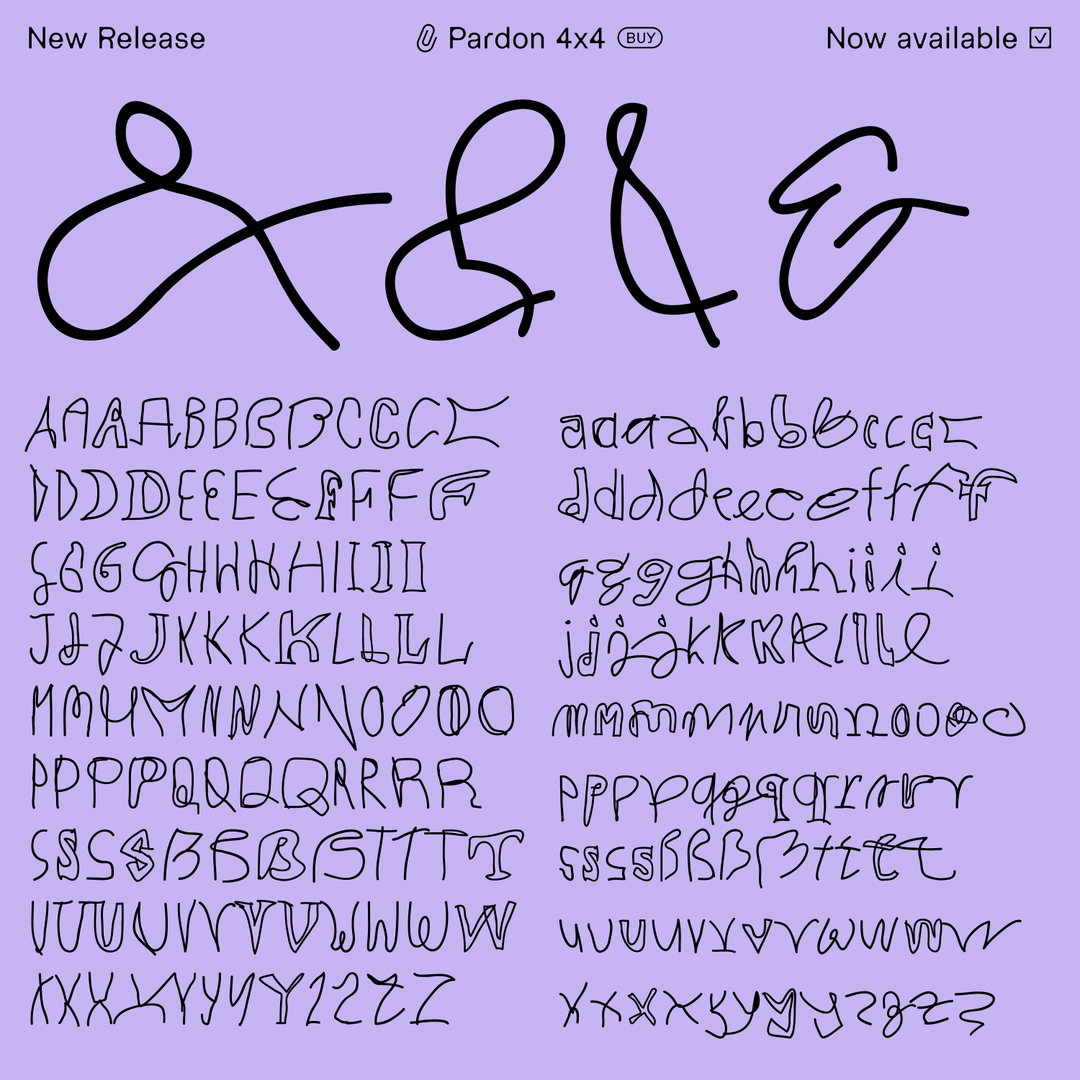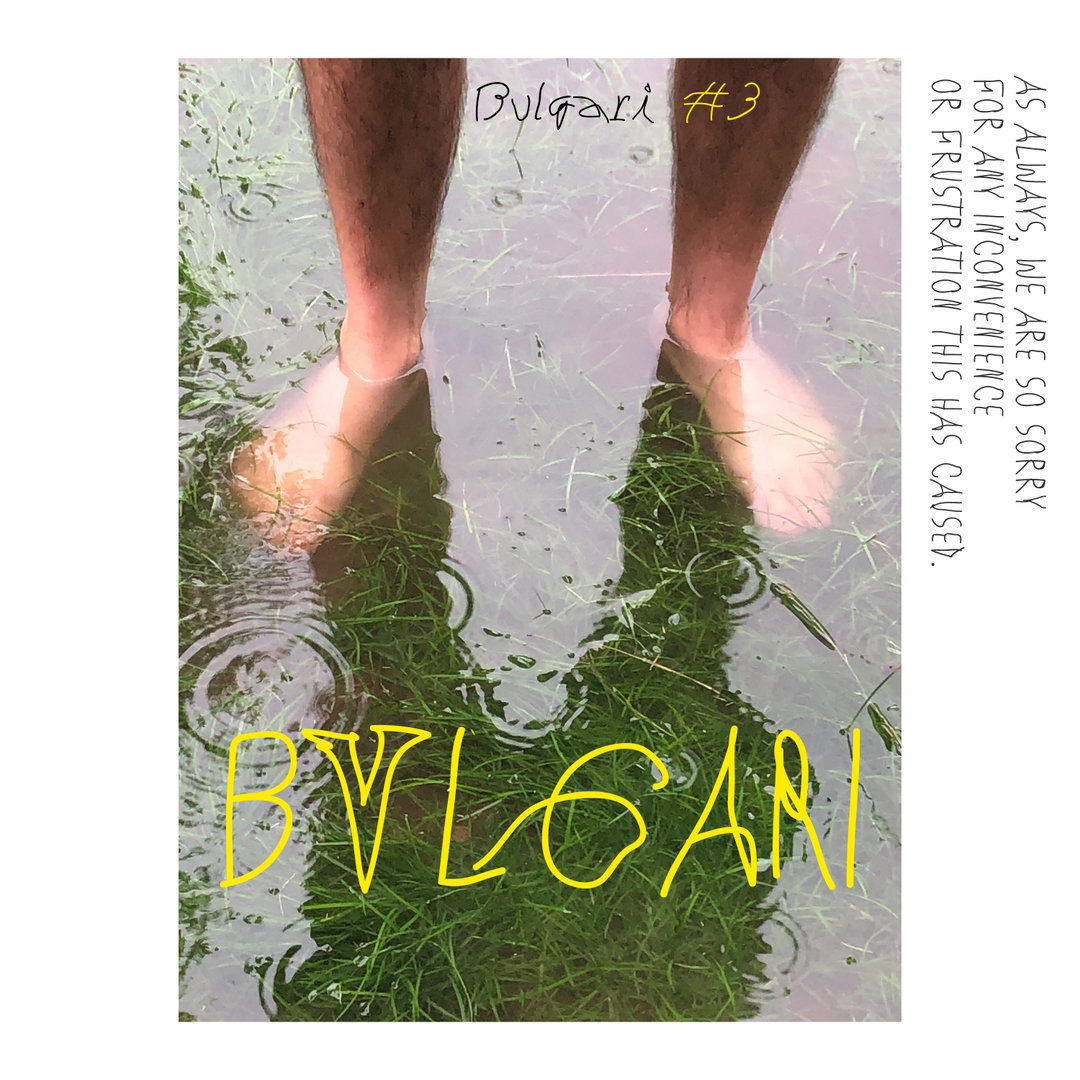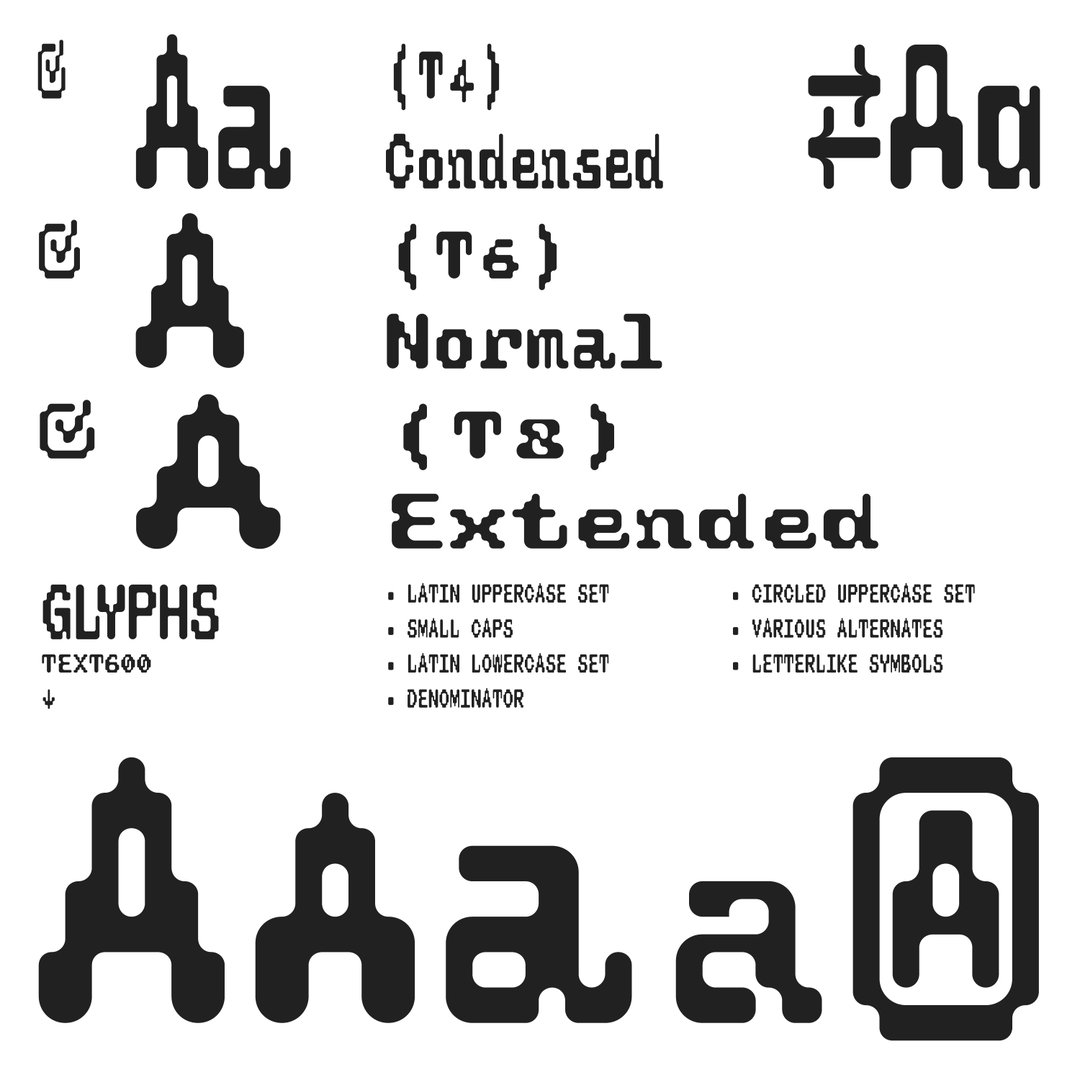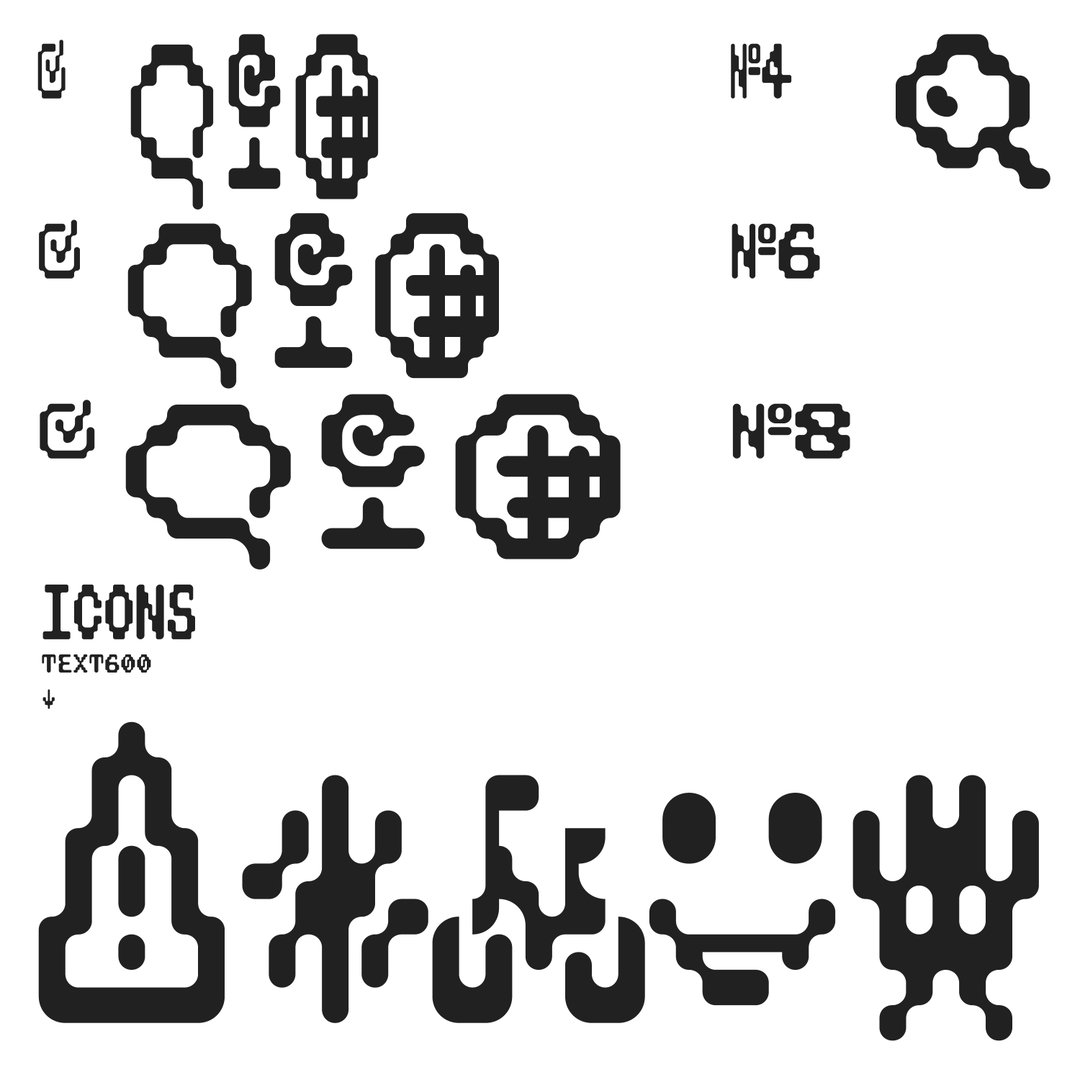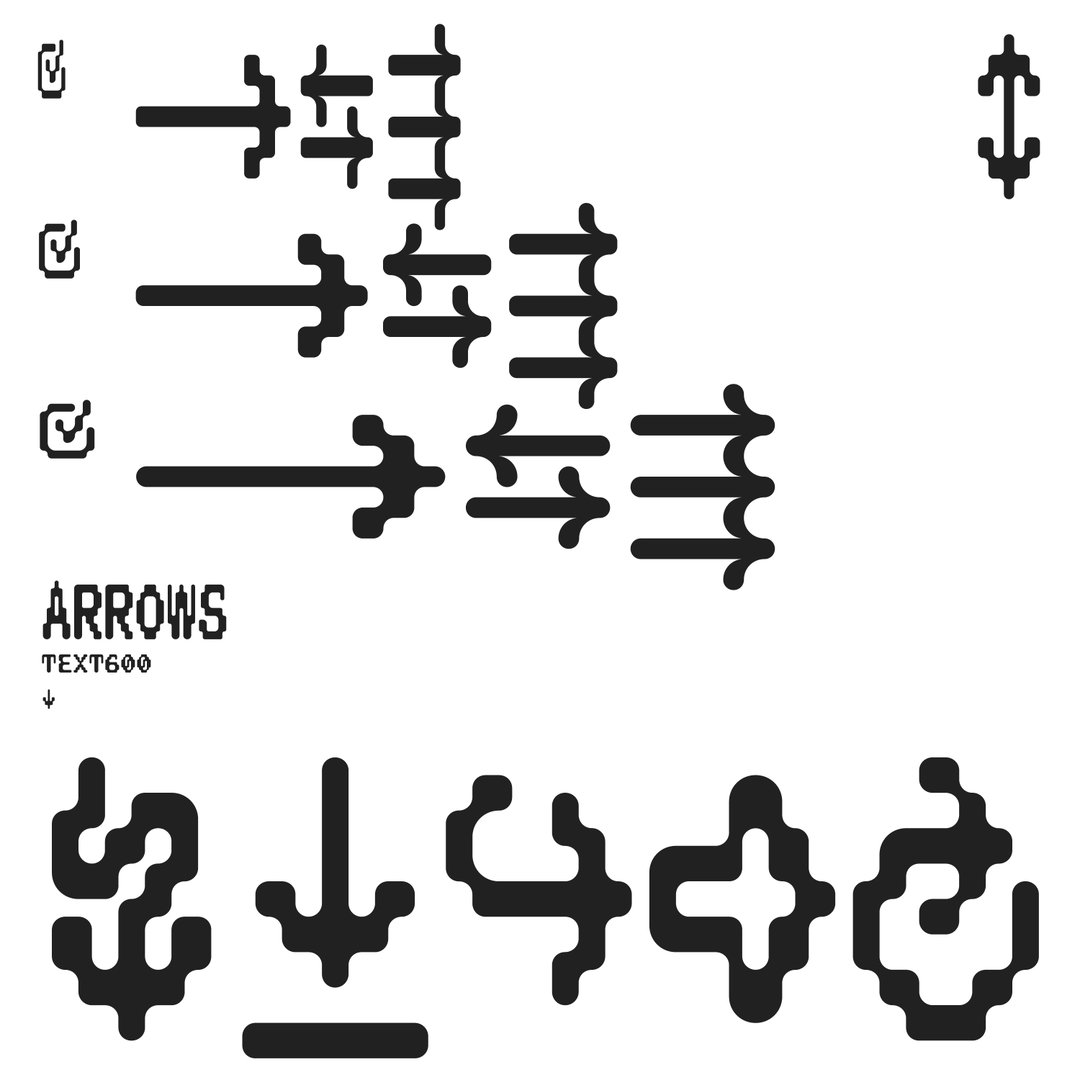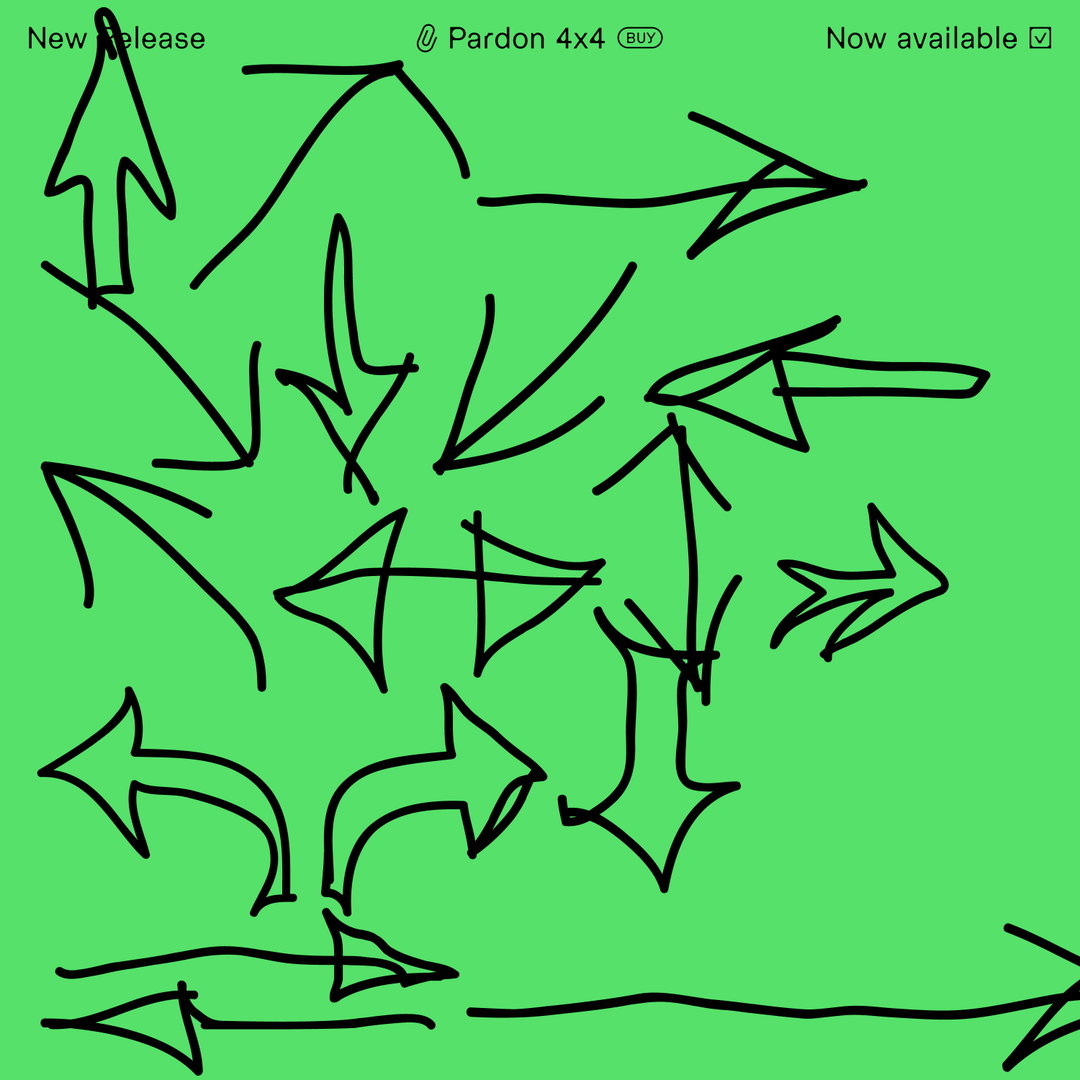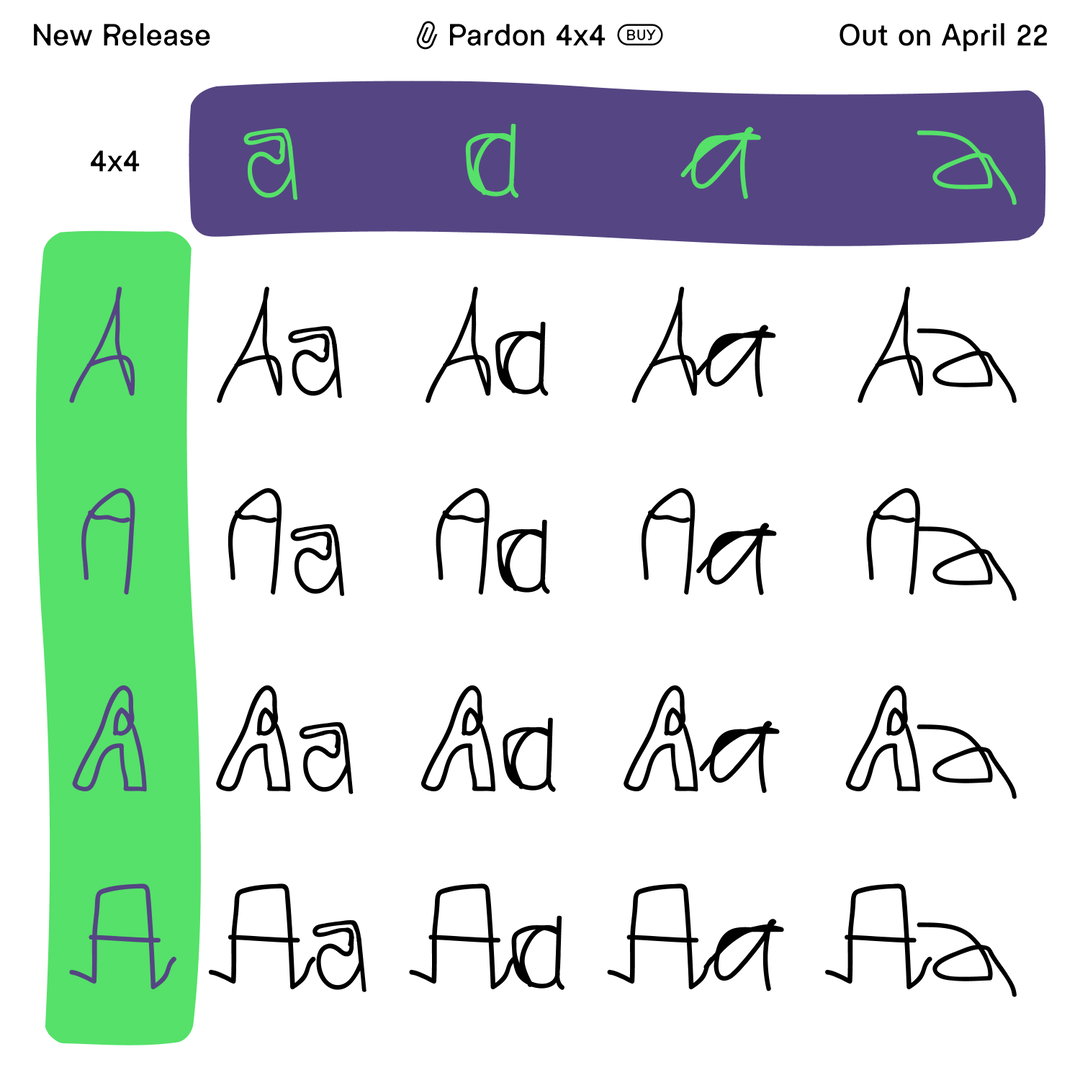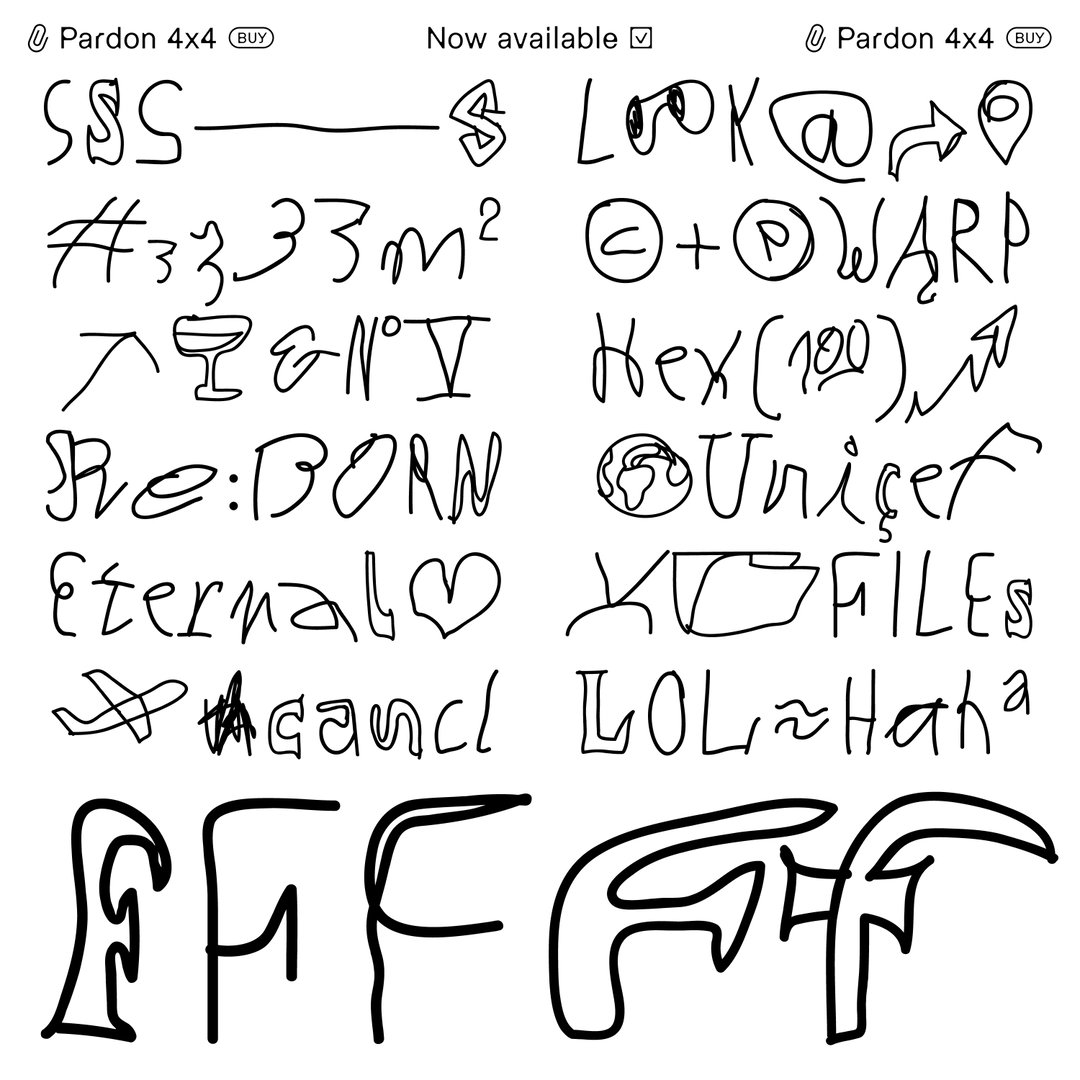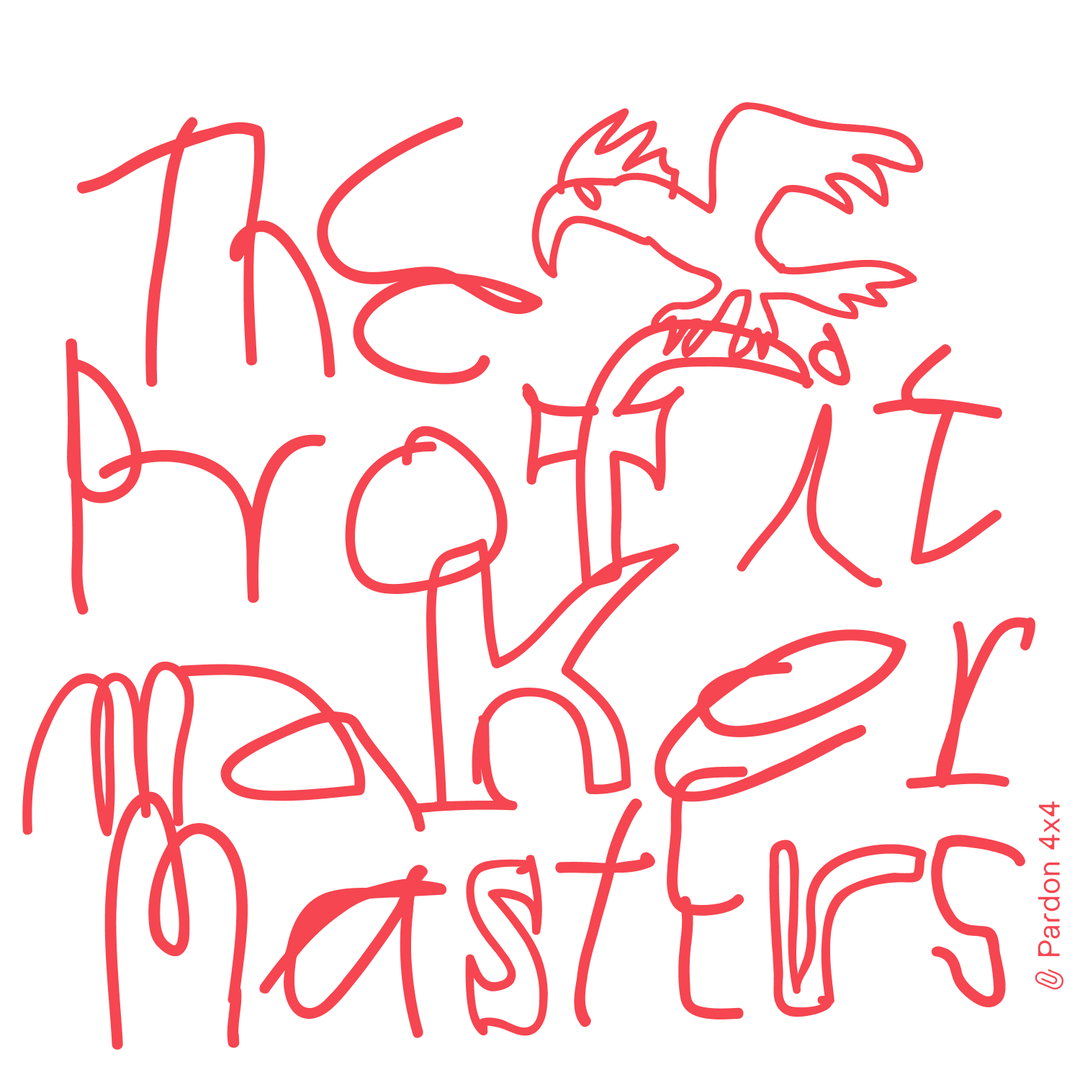
“Intentionally a failure”: PFA’s new typeface looks like it’s been drawn with a pen held between someone’s toes
We talk to the graphic designer behind PFA about two very different typefaces, one which emulates handwriting, the other mimicking type-written game console fonts.
“Imperfection and disproportion” are the guiding principles for PFA’s new typeface Pardon, Martin Aleith tells It’s Nice That. The name is paradoxical, he adds, because “Pardon would never be sorry, it would like to be taken as it is”. It is a single weight, handwritten font, which was carefully crafted to give the impression that “someone is writing while holding the pen with their toes”. To emulate the variety and spontaneity of real handwritten words, each uppercase and lowercase letter has four different alternates which means for every four letter word there could be 256 different ways to display it. Sound a little overwhelming? Never fear, PFA has invented the Pardon-4x4-Generator. When you type in a word it will randomly generate a selection of letters so you can explore all the quirky possibilities of the typeface of with ease.
PFA typefaces is a branch of Berlin-based PFA Studios collective, with Martin working solo on the graphic design side and developing all the typefaces with a programmer. This meant that producing such an extensive range of lettering for the typeface involved a lot of hard work. But it was also a hilarious and fun-filled creative process, Martin tells us: “I have never laughed so much at any other typeface developing progress.”
He used a mouse instead of a pen on Illustrator to draw the letters and encouraged experimentation at every step of the process, making an average of 50 iterations for each character, “some characters were even drawn mirrored or upside down”. He also designed a huge selection of numbers, arrows, icons and special characters which he fondly refers to as “freaks”. He describes the finished typeface as “intentionally a failure – it is multipersonal, nonconformist, original and eccentric”.
The KyotoTW typeface was one of the first projects to come out of PFA typefaces, founded just two years ago. It provides the ultimate contrast to the spontaneity of Pardon. Kyoto TW mimics the appearance of machine-produced type-written letters with particular reference to early game console fonts. It recalls the style of font used by a video game company headquartered in Kyoto (Japan), Martin tells us. But instead of studying examples for the company closely, he decided to emulate it through his memories of the font, adding: “I didn't want to imitate anything typical. I wanted to develop all glyphs without visual influence.”
A far cry from the scribbles and scratches which make Pardon look so human, KyotoTW is a typical monospaced typeface that “requires all its glyphs to have identical character widths,” says Martin. “It insists on rigid spacing.” This meant that kerning was unnecessary during the creative process, leaving him more time to approach the challenge of creating recognisable letters within a very specific space and style. He also focused his attention on adding character to the mechanical forms. For example, he points out how the use of vertical stems with different widths imitate the imperfection of typewritten letters, “like an accumulation of ink on paper”.
Thus KyotoTW is both formulaic yet imperfect, beautifully evoking the fonts used in outdated tech like typewriters and old game consoles. “It’s a reminiscence to all the typefaces that were born with the machines and died with them,” Martin concludes.